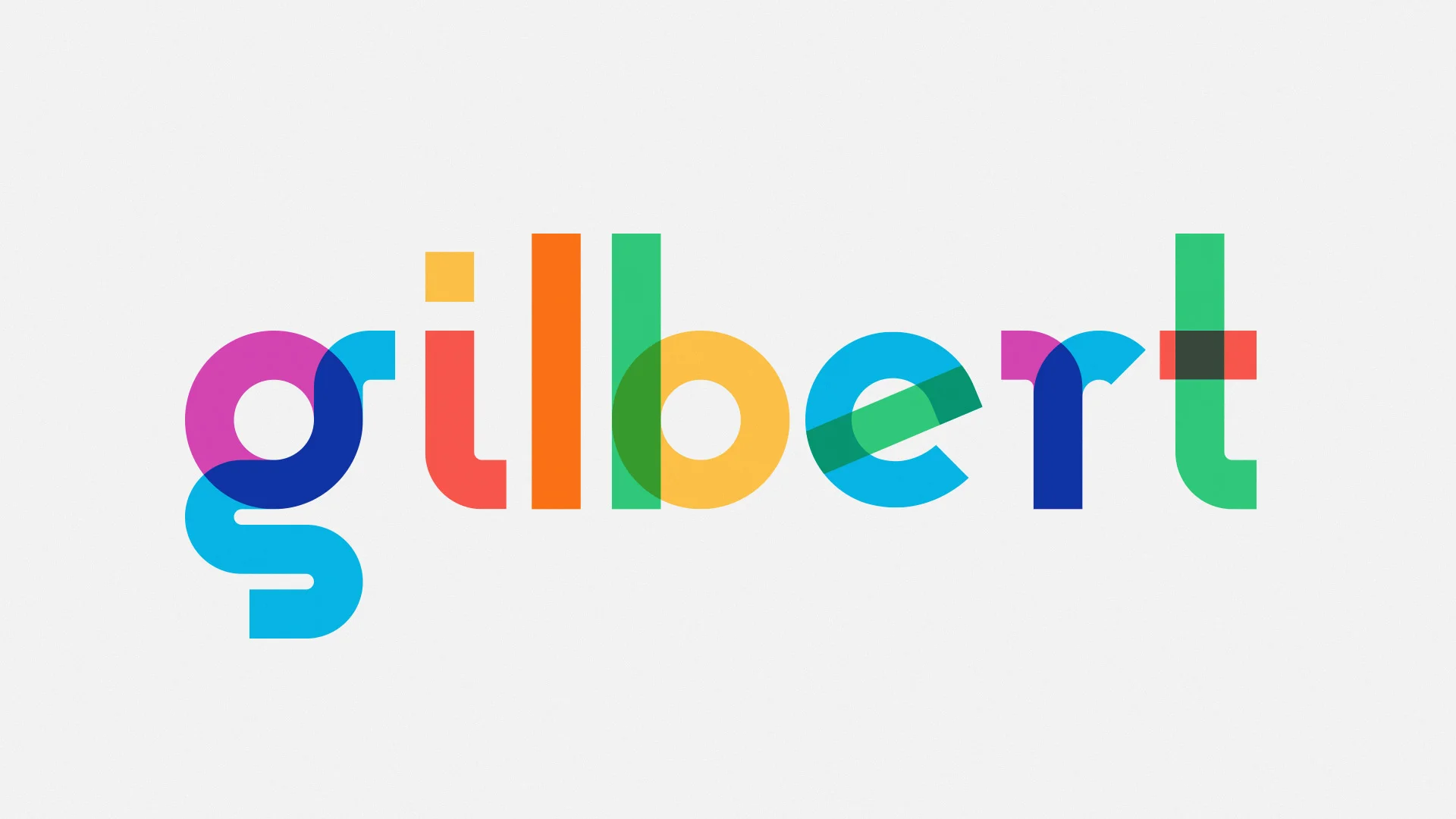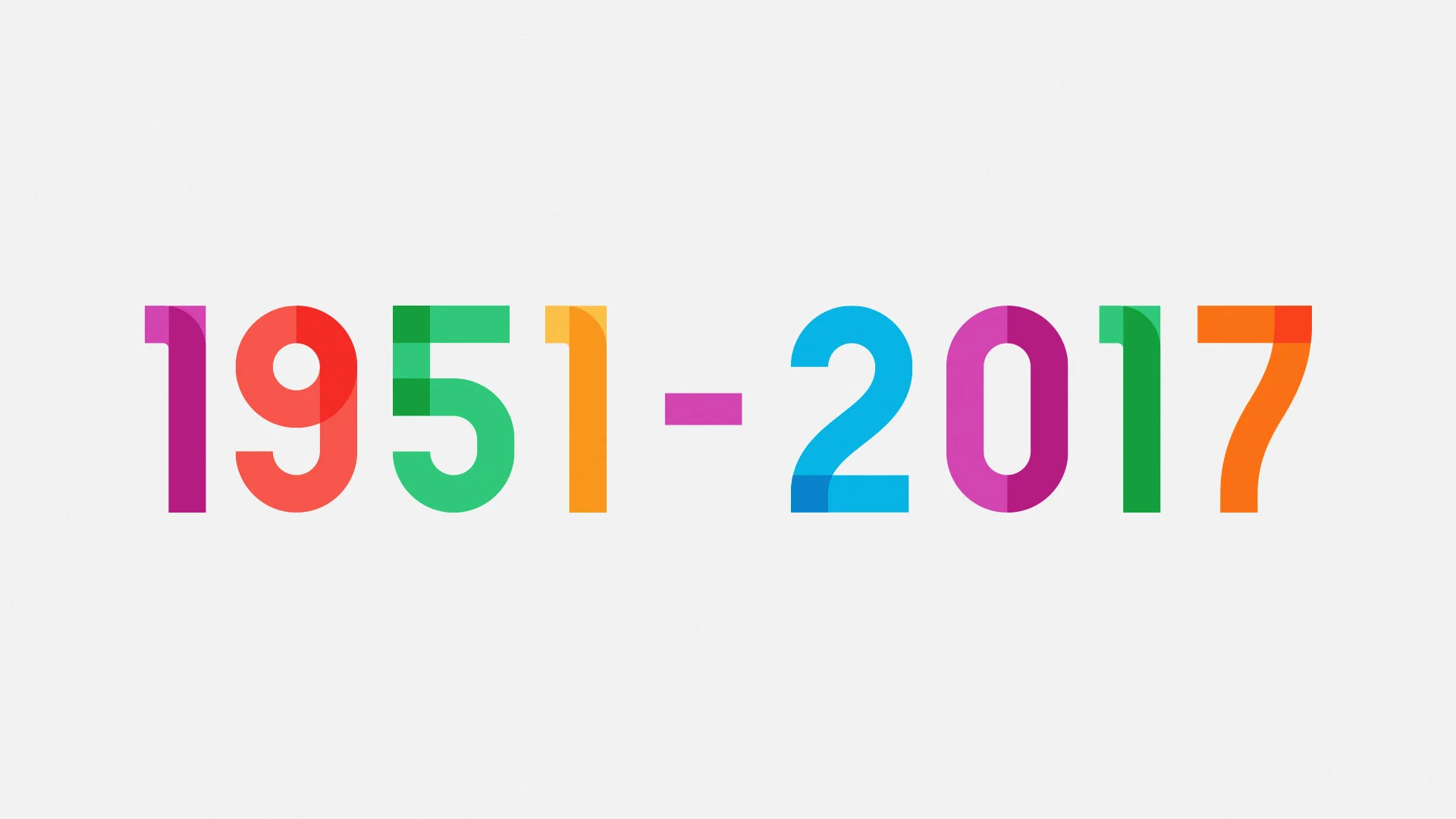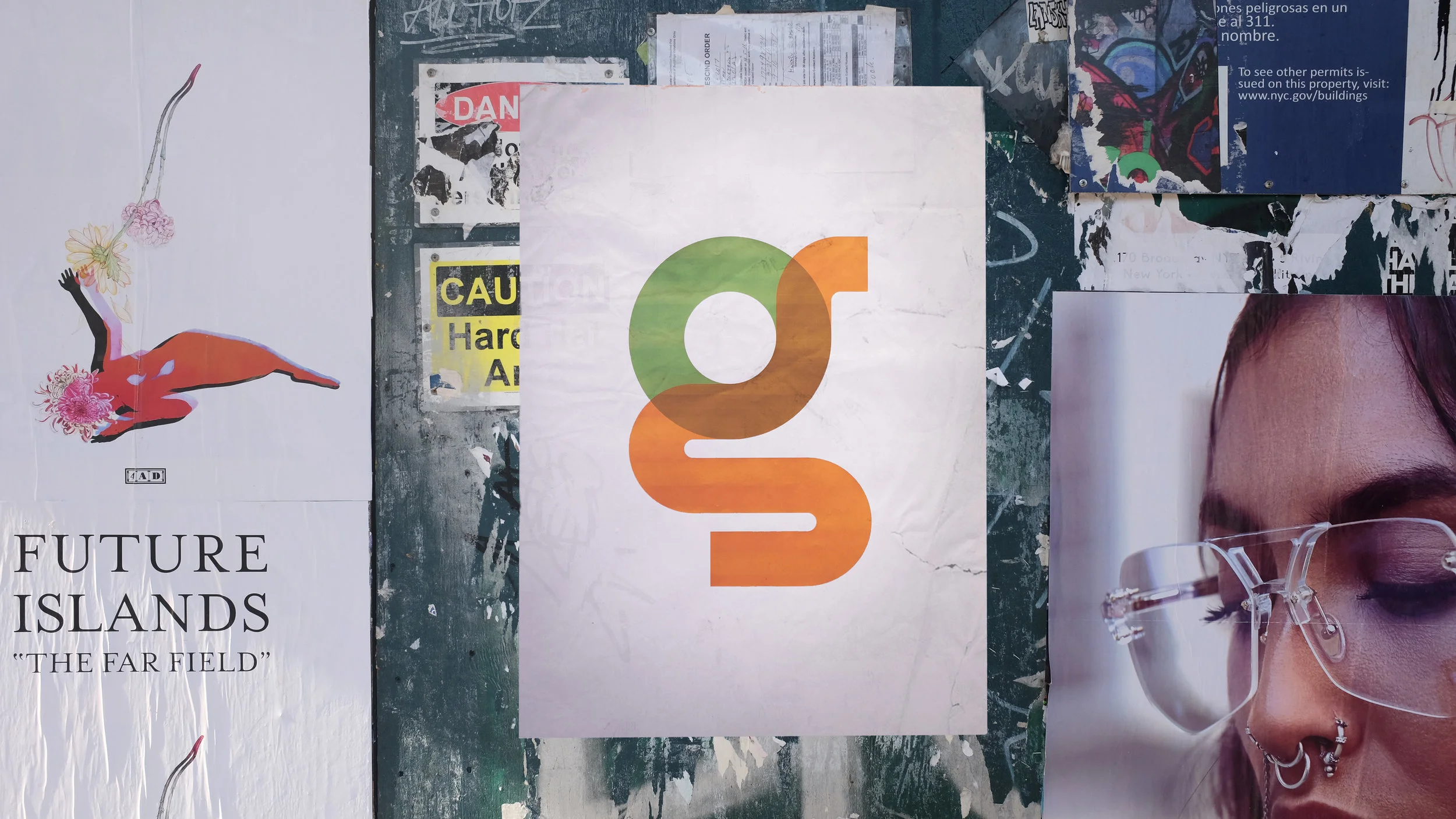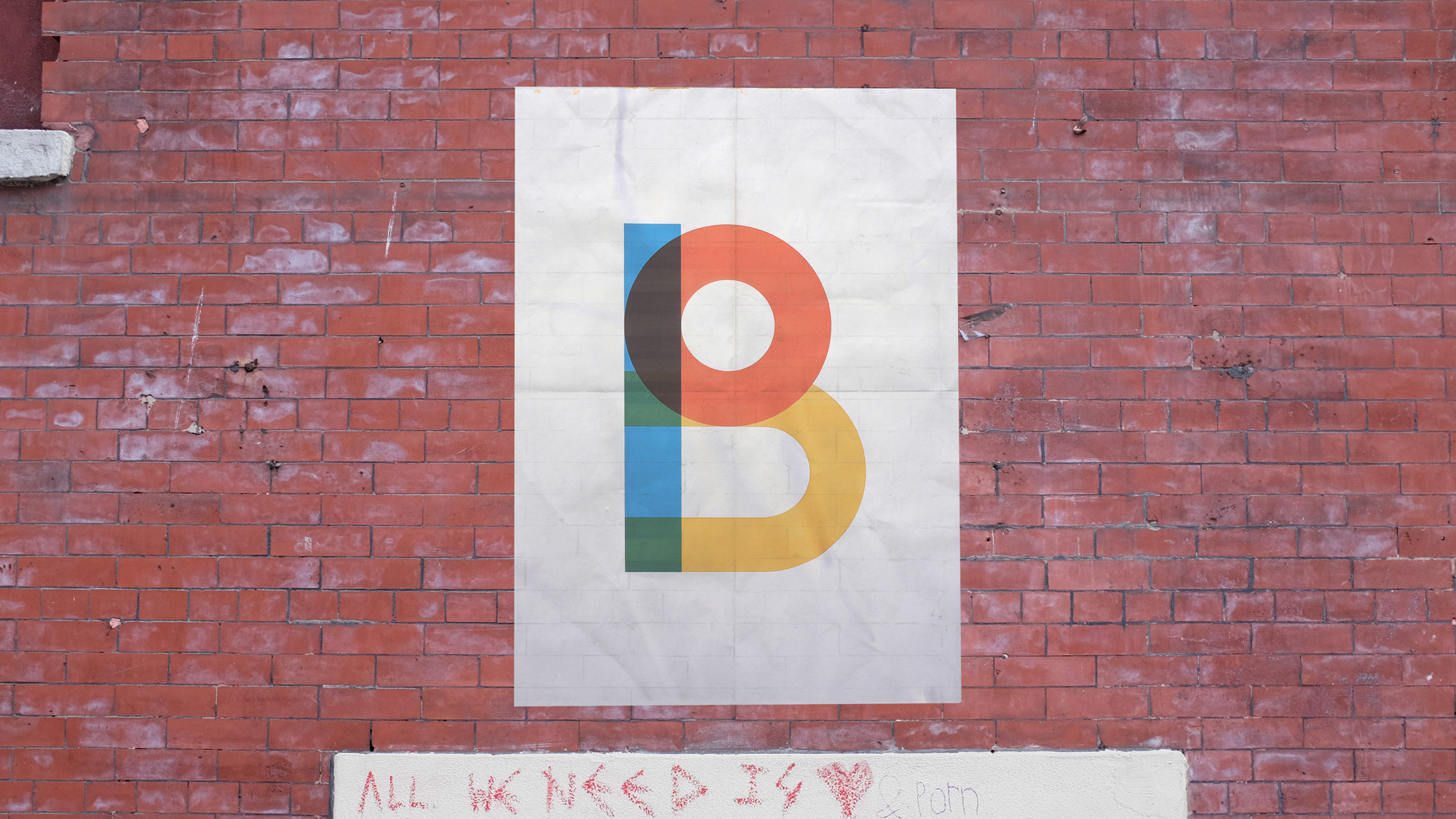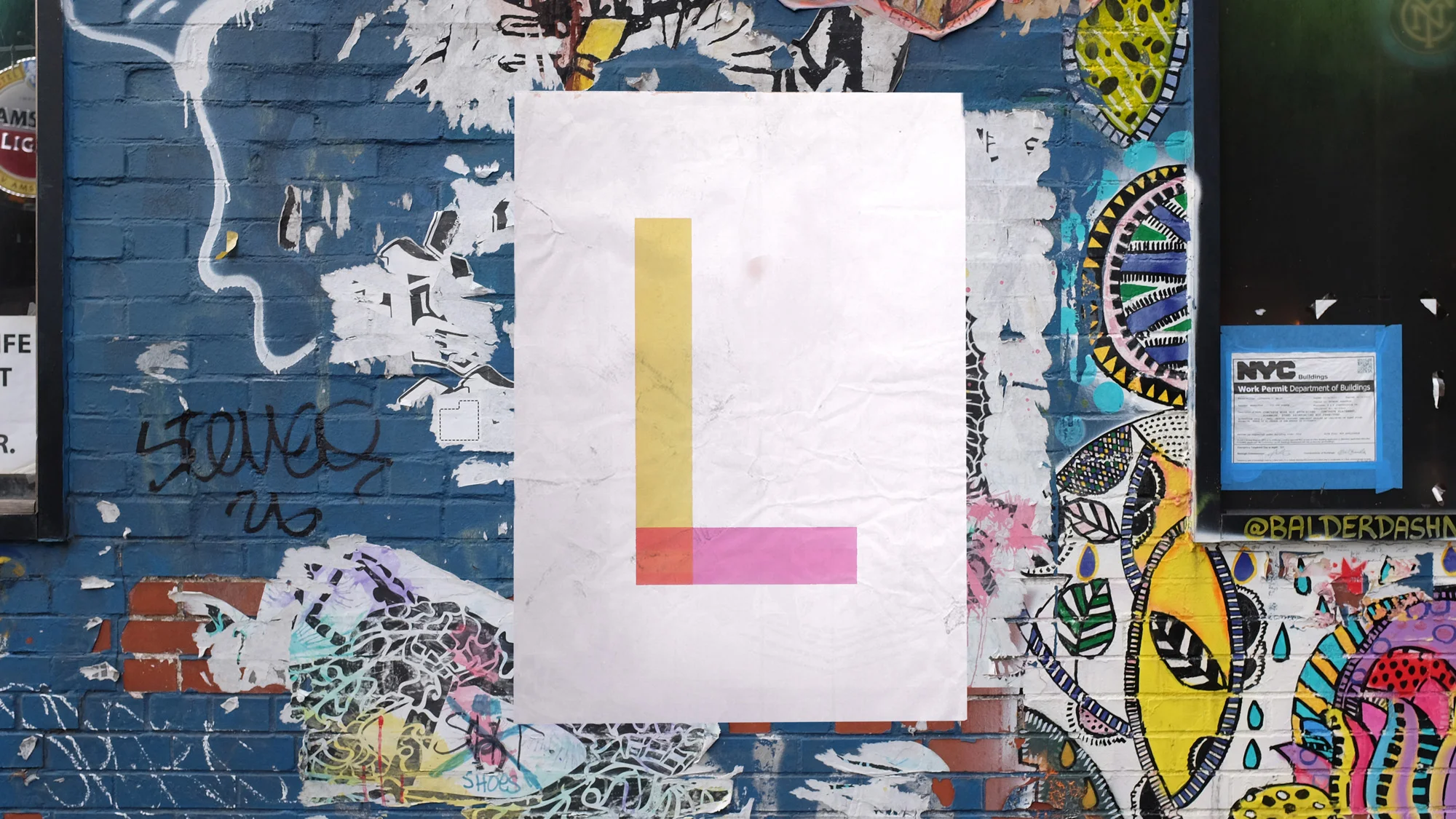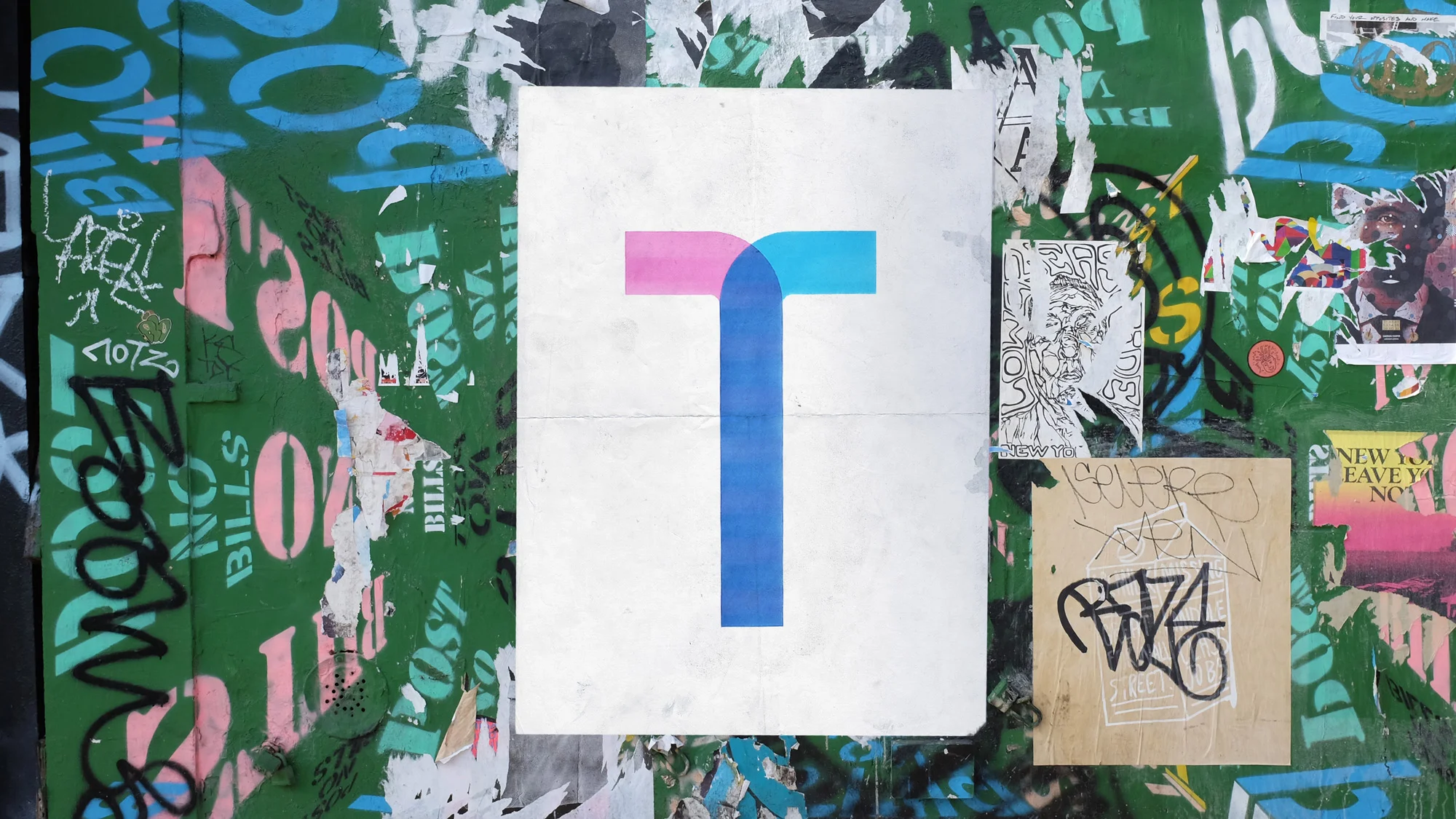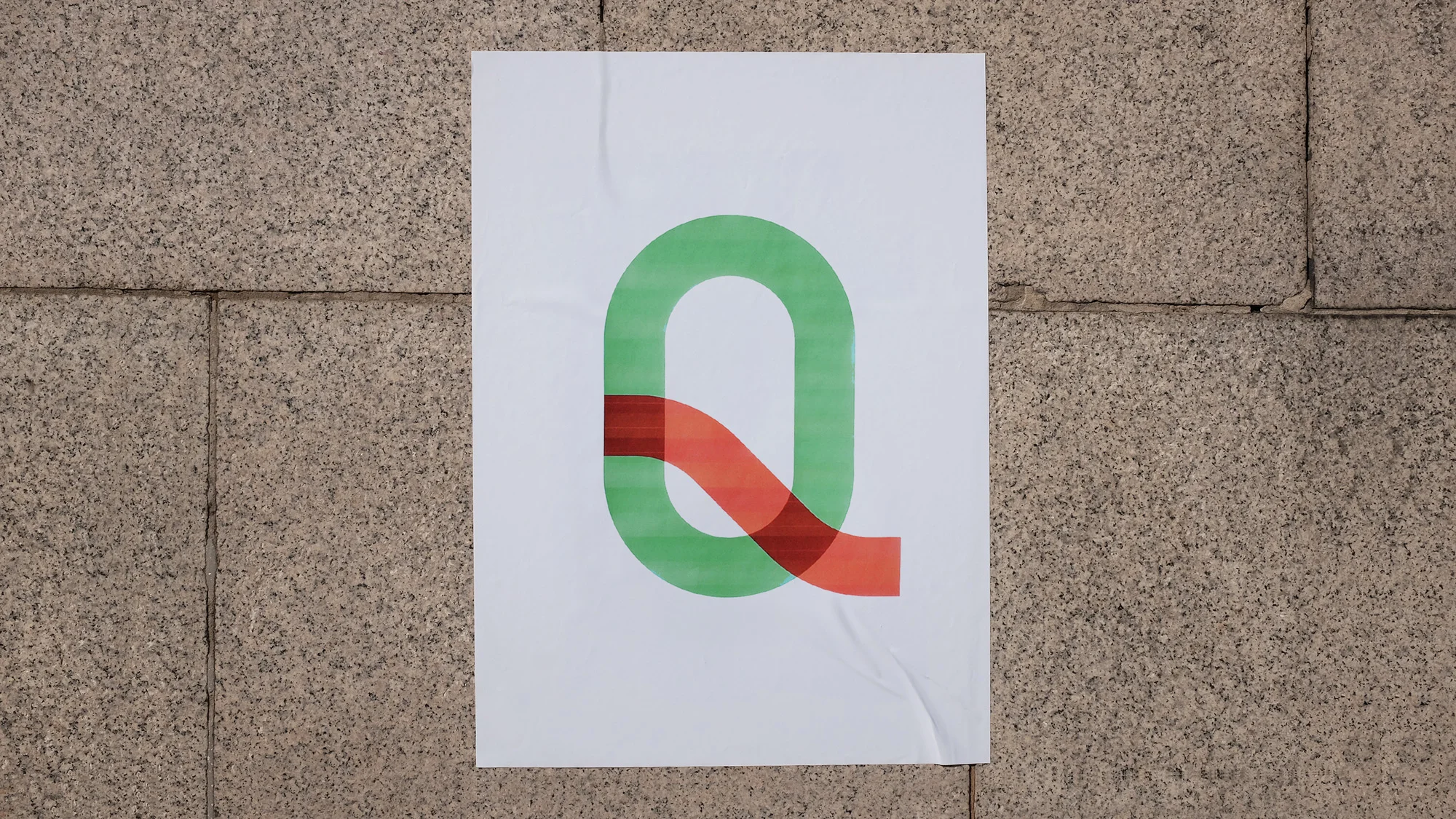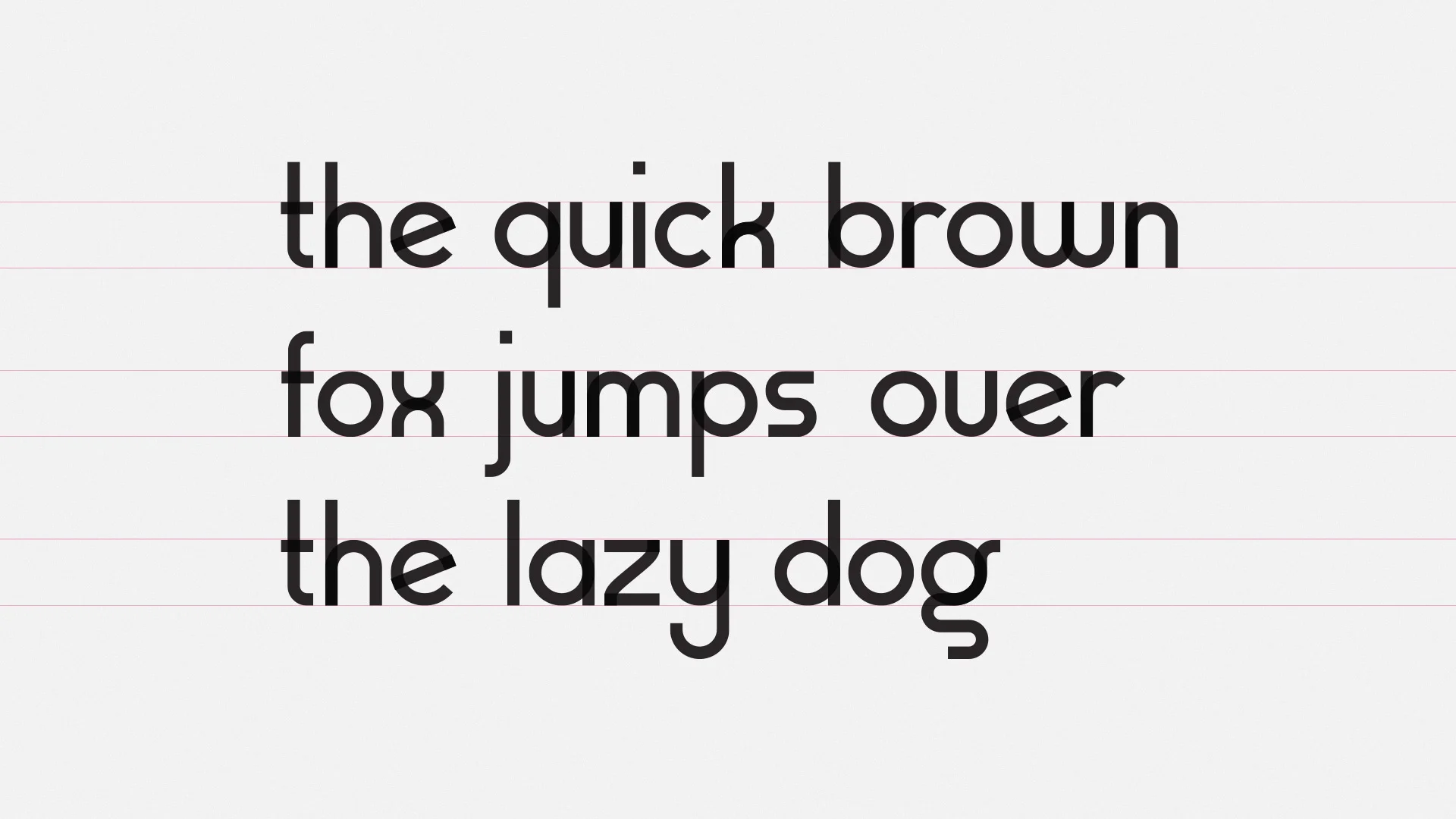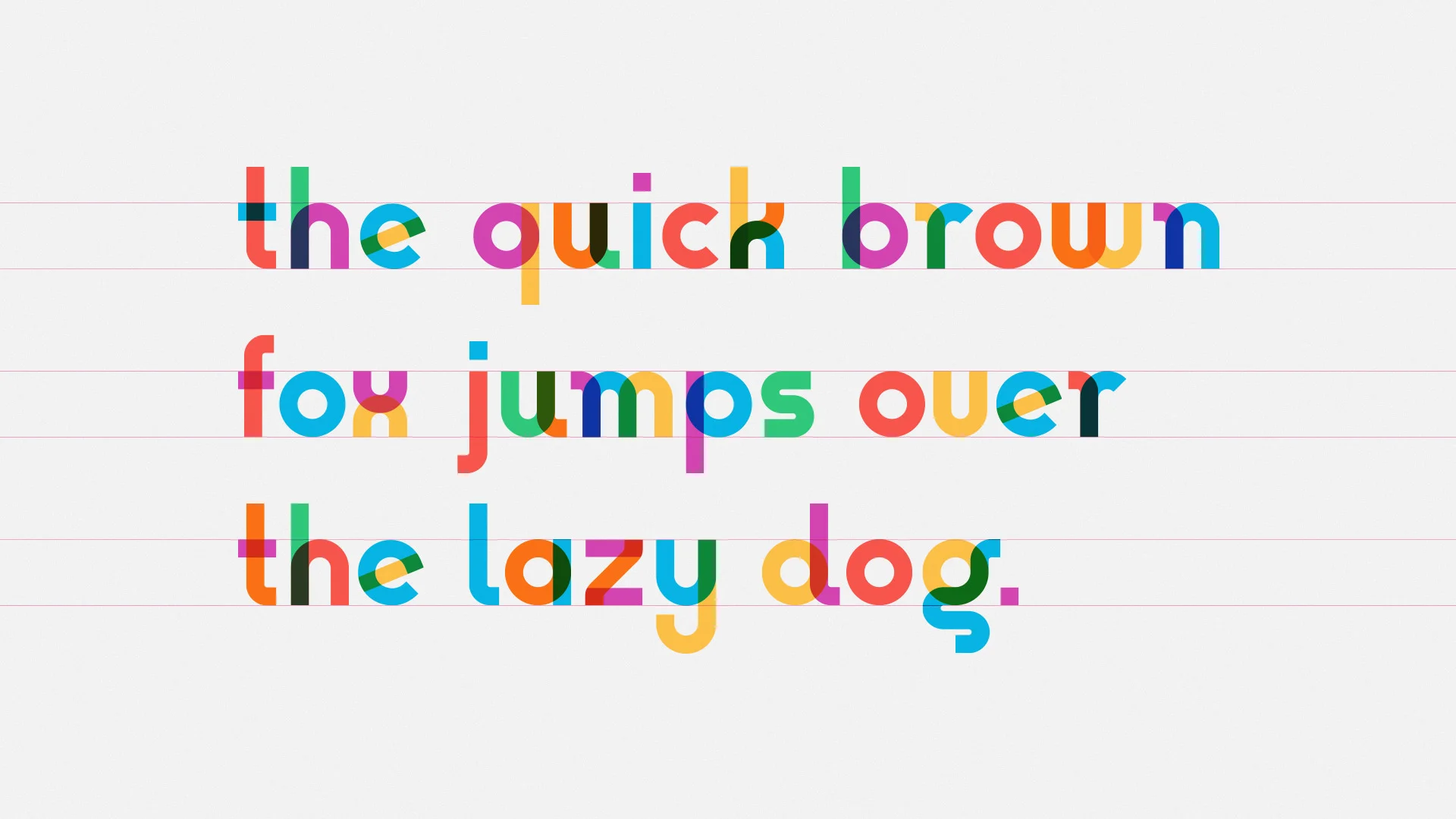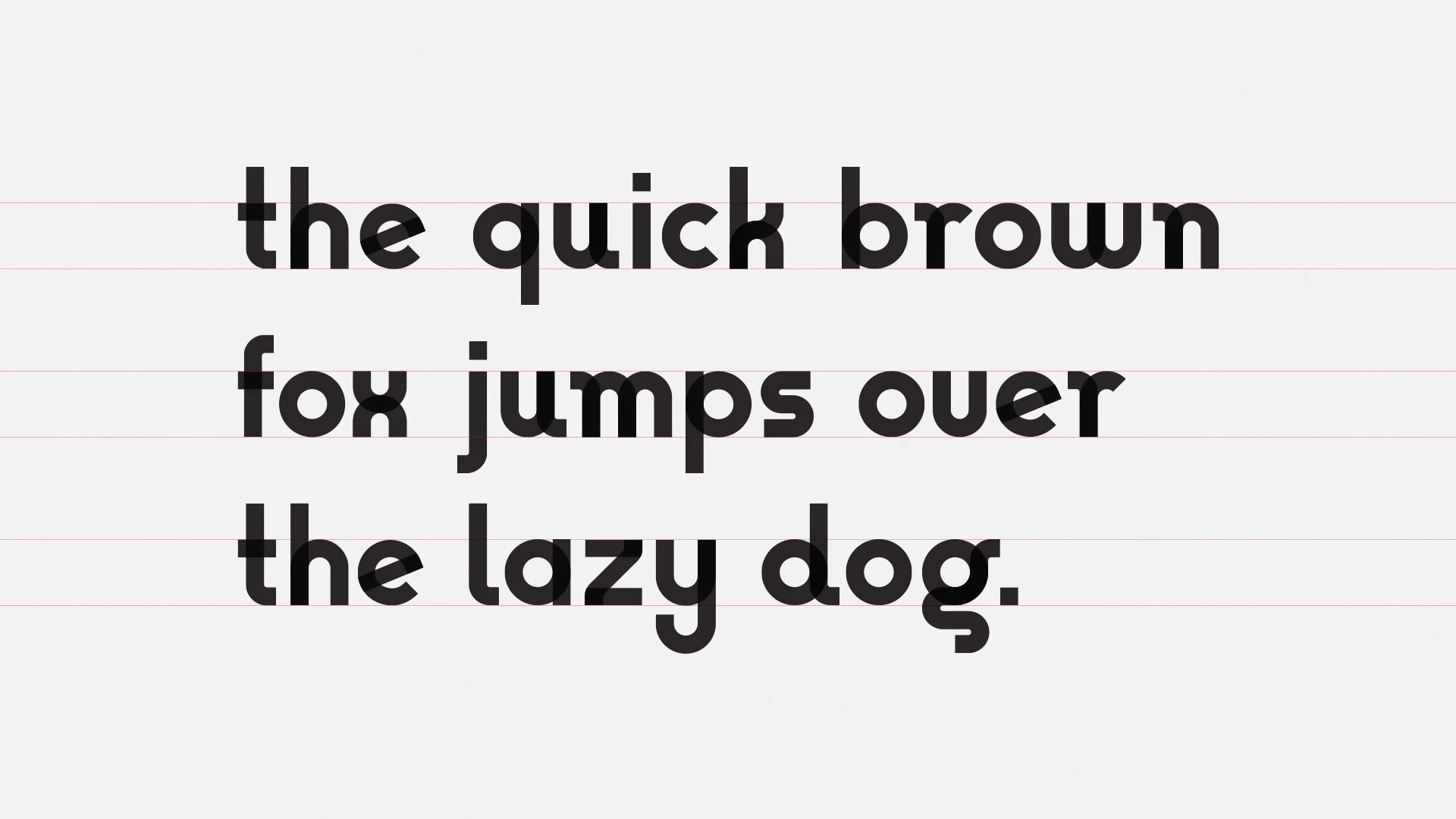
On 31 March, 2017, Gilbert Baker the creator of the iconic Rainbow Flag sadly passed away. Mr. Baker was both an LGBTQ activist and artist, and was known for helping friends create banners for protests and marches. To honor the memory of Gilbert Baker, NewFest and NYC Pride partnered with Fontself to create a free font inspired by the design language of the iconic Rainbow Flag, the font was named 'Gilbert' after Mr. Baker. A preview version of the font can be downloaded for free in the download section.
The Gilbert font was originally designed for striking headlines and statements that could live on banners for rallies and protests and it is now currently being built out into a whole family of weights and styles. The font is available in two versions, a standard vector font and a color font (in OpenType-SVG format) currently usable in Photoshop CC 2017, Illustrator CC 2018, InDesign CC 2019 and above. Both fonts are early beta previews that you can download below for free, and you can follow @TypeWithPride on Instagram and on our development blog for news about new font weights, styles and creative contests.
NEW: now includes Katakana characters
Type with Pride partnered with Animography to create Gilbert Animated, a motion-ready typography resource designed for animation, film, video, social posts, GIFs and much more. The free animated font is useable in Adobe After Effects. Find out more at animography.net
Gilbert Baker was both an LGBTQ activist and artist, and was known for helping friends create banners for protests and marches. In the spirit of Mr. Baker's creative and collaborative nature, we've created free downloadable art intended to be printed and held high at pride events, protests and rallies.